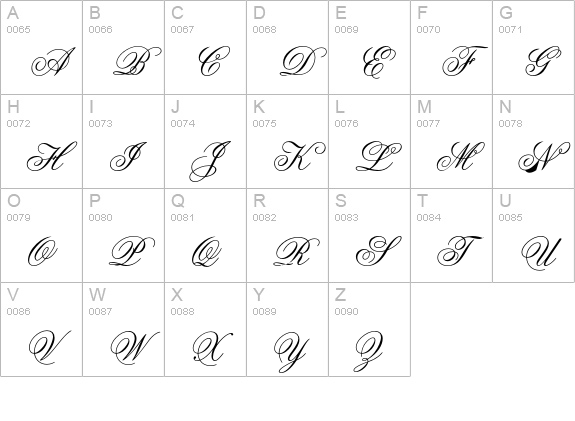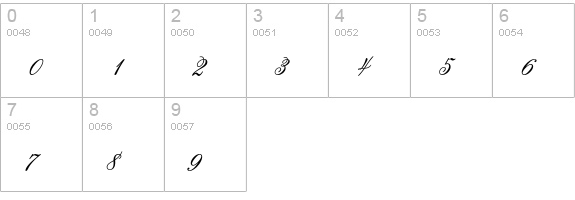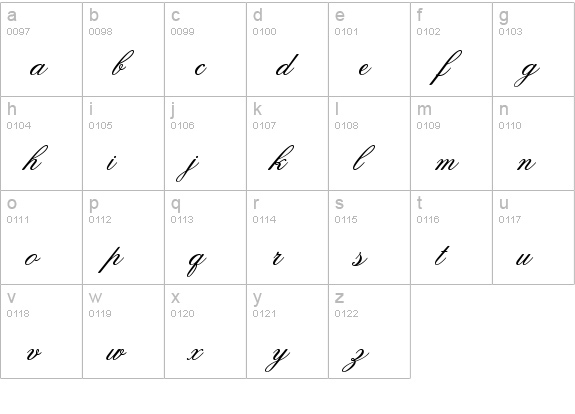
Flemish Script Font Details
The Flemish Script font is a beautiful and elegant typeface that exudes class and sophistication. Its delicate and flowing strokes give any text a touch of old-world charm and timeless elegance. Perfect for formal invitations, wedding stationery, or any project that requires a touch of refinement. Best of all, Flemish Script is available for free download at FontsMarket.com. Now you can add a touch of elegance to your designs without breaking the bank. Don't miss out on this stunning font that will elevate your projects to a whole new level. Download Flemish Script today and let your creativity soar!